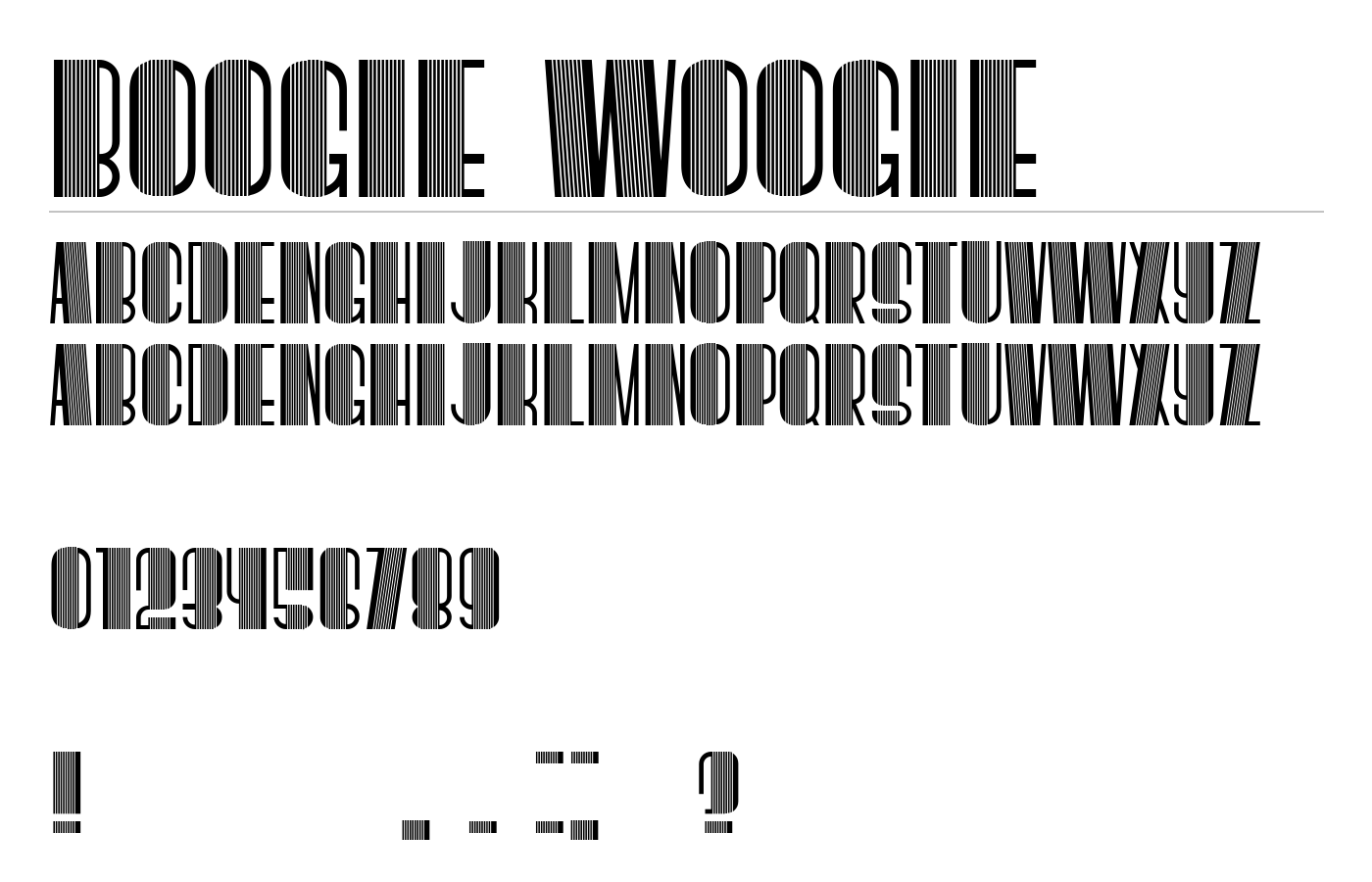
Boogie Woogie is a bold and narrow sans serif display font featuring vertical striped lines that create a dynamic, retro-inspired look. Its tall, condensed letterforms and high contrast between stripes give it a lively, energetic personality perfect for attention-grabbing headlines, posters, and vintage-themed branding. Ideal for creative projects that want to evoke a playful yet sophisticated vibe, this font stands out with its unique striped texture and art deco influence.
Boogie Woogie Font
About Boogie Woogie Font